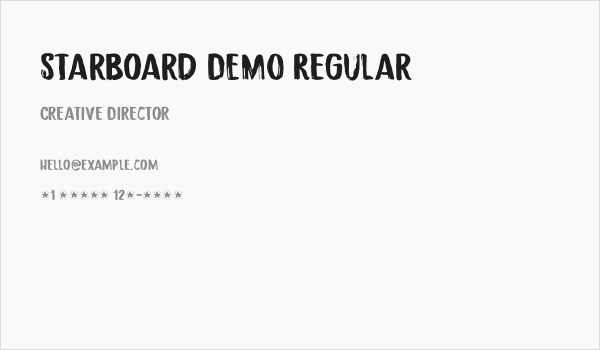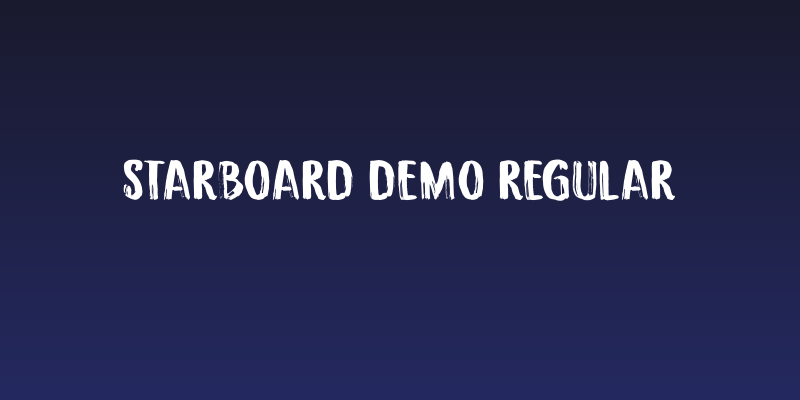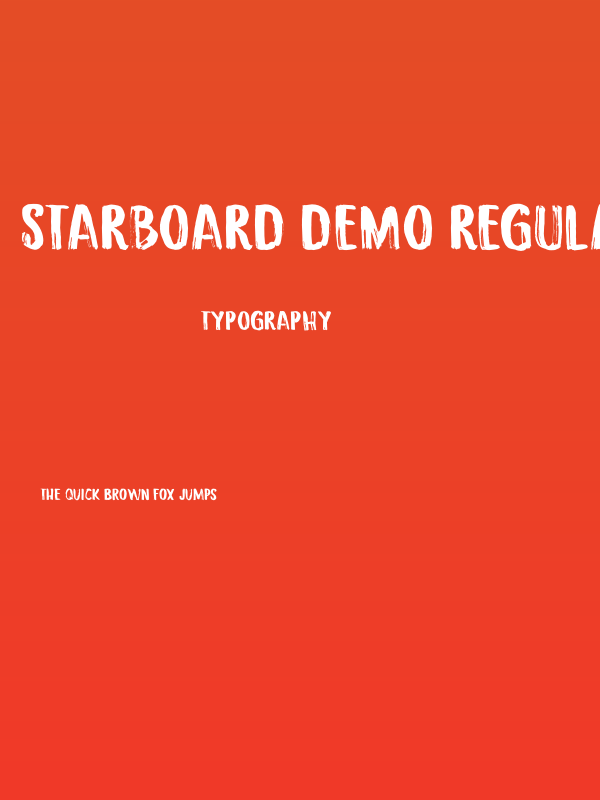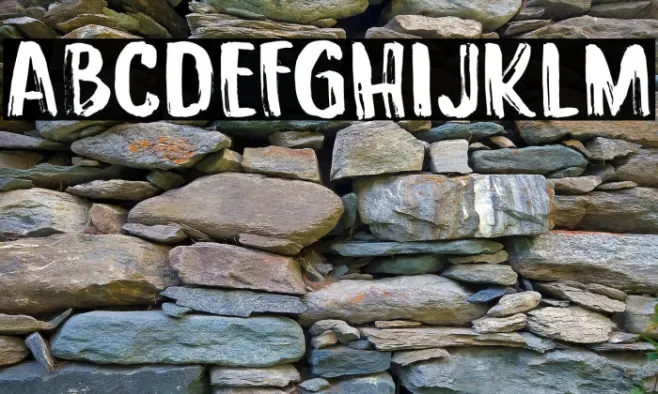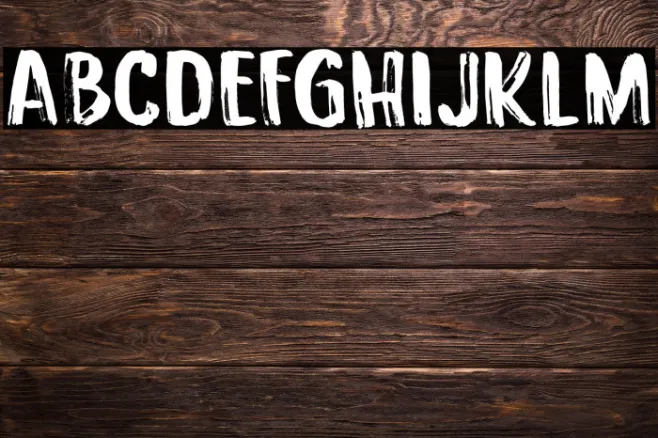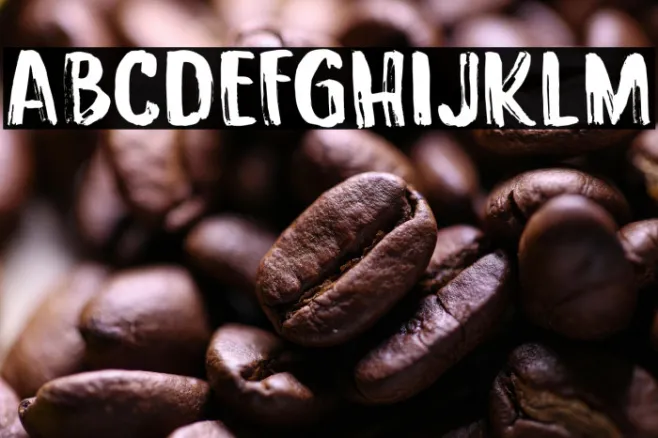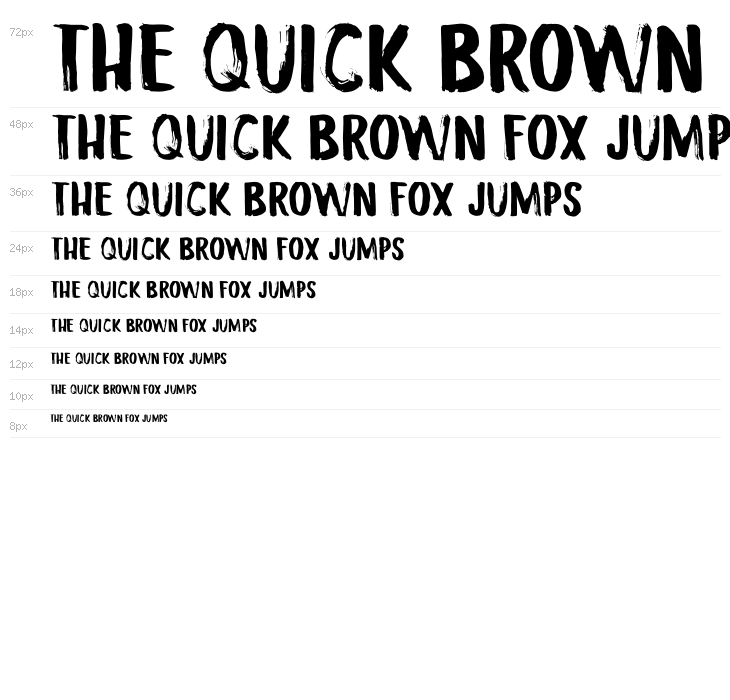
Starboard DEMO Regular Font
Starboard DEMO Regular Description
This font features a bold, brush-stroke style that exudes a sense of dynamic energy and artistic flair. The characters are crafted with a rough, hand-painted appearance, giving them a unique and expressive quality. The uppercase and lowercase letters maintain a consistent style, with thick strokes and irregular edges that suggest movement and creativity. The numbers and special characters follow the same aesthetic, ensuring a cohesive look across all text elements. This font is ideal for projects that require a bold statement or a creative touch, such as posters, branding, or artistic designs.
| Overall Style | Artistic, Dynamic |
| Proposed Projects | Ideal for posters, branding, artistic designs, and any project needing a bold, creative touch. |